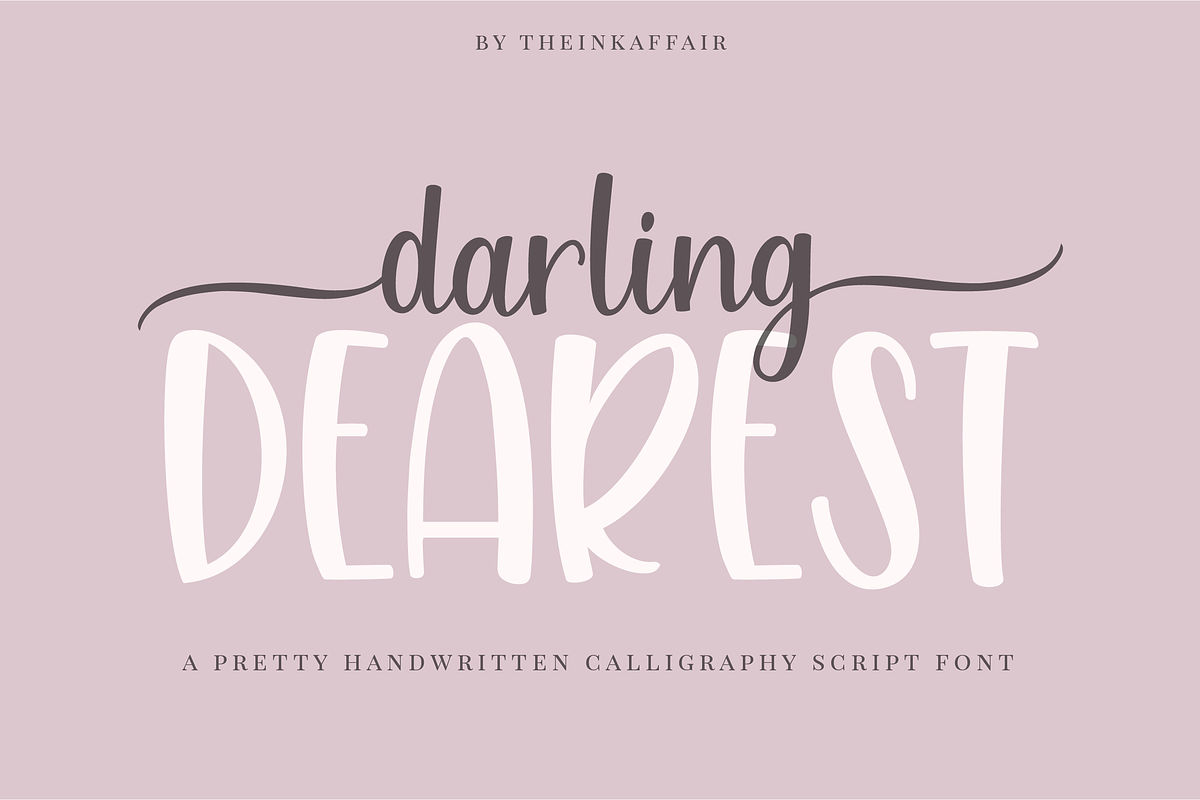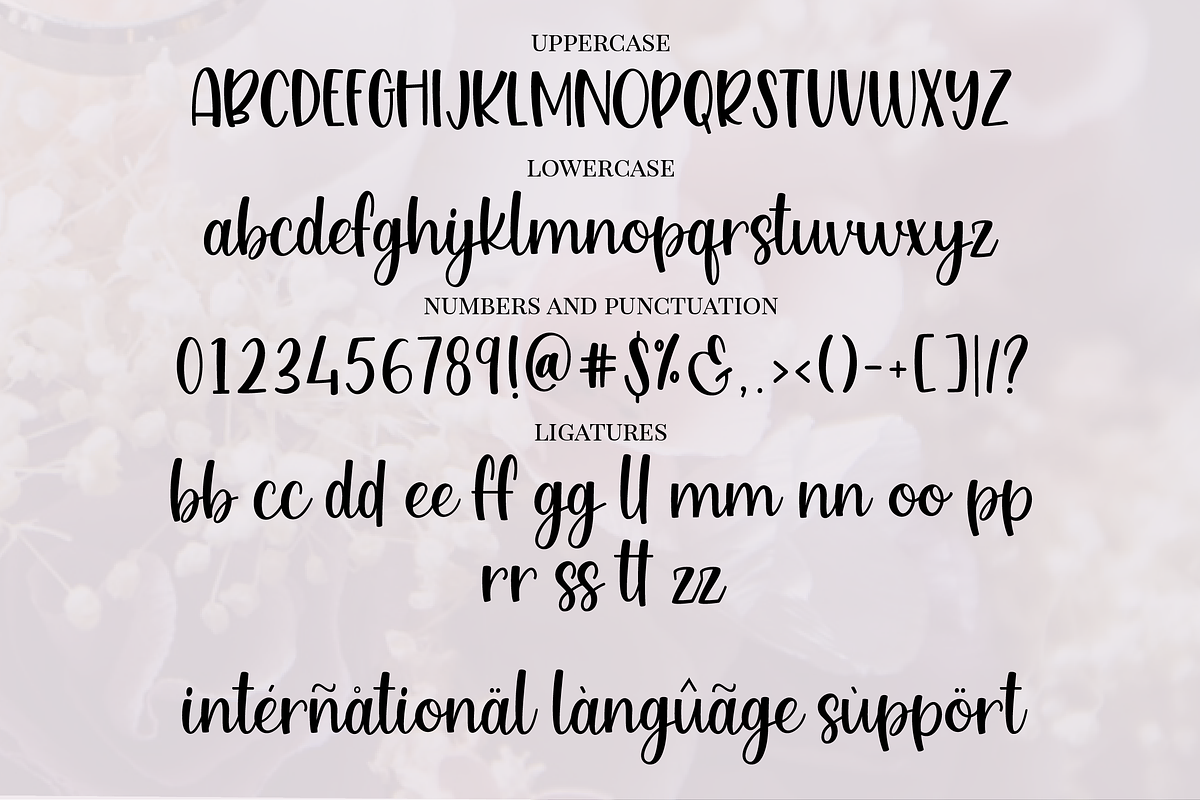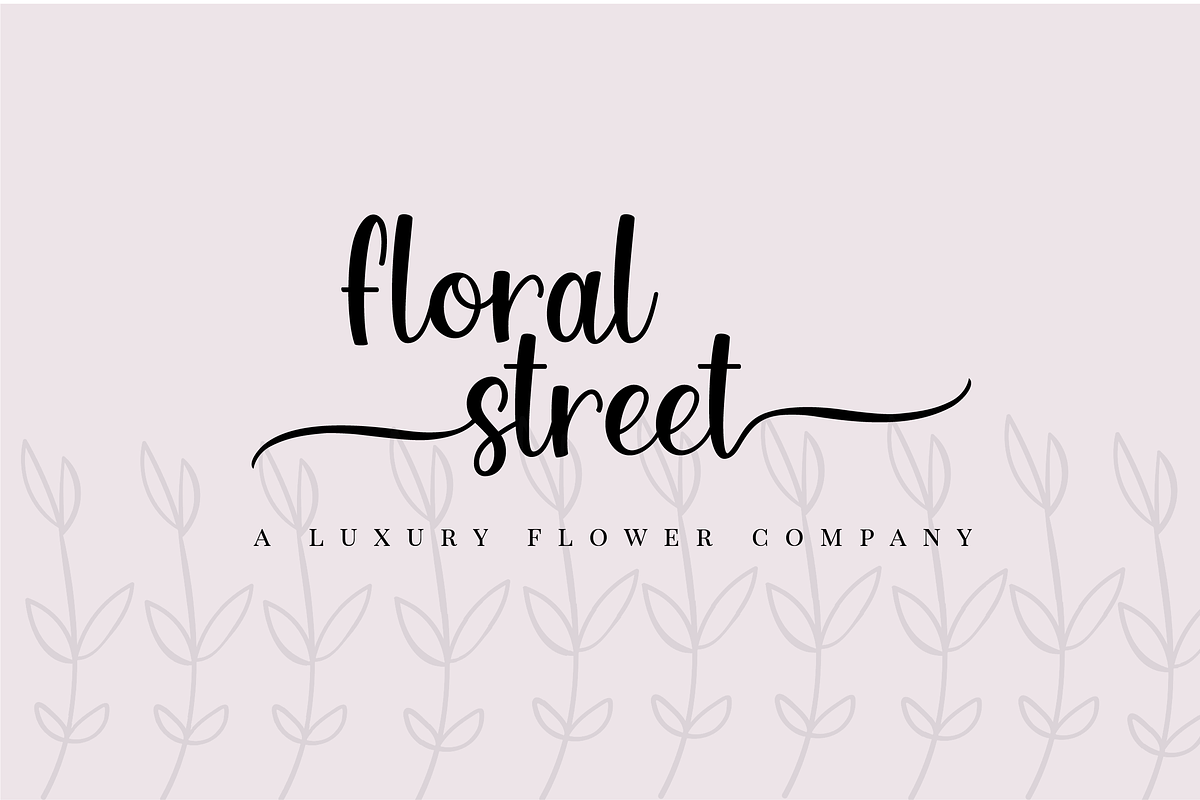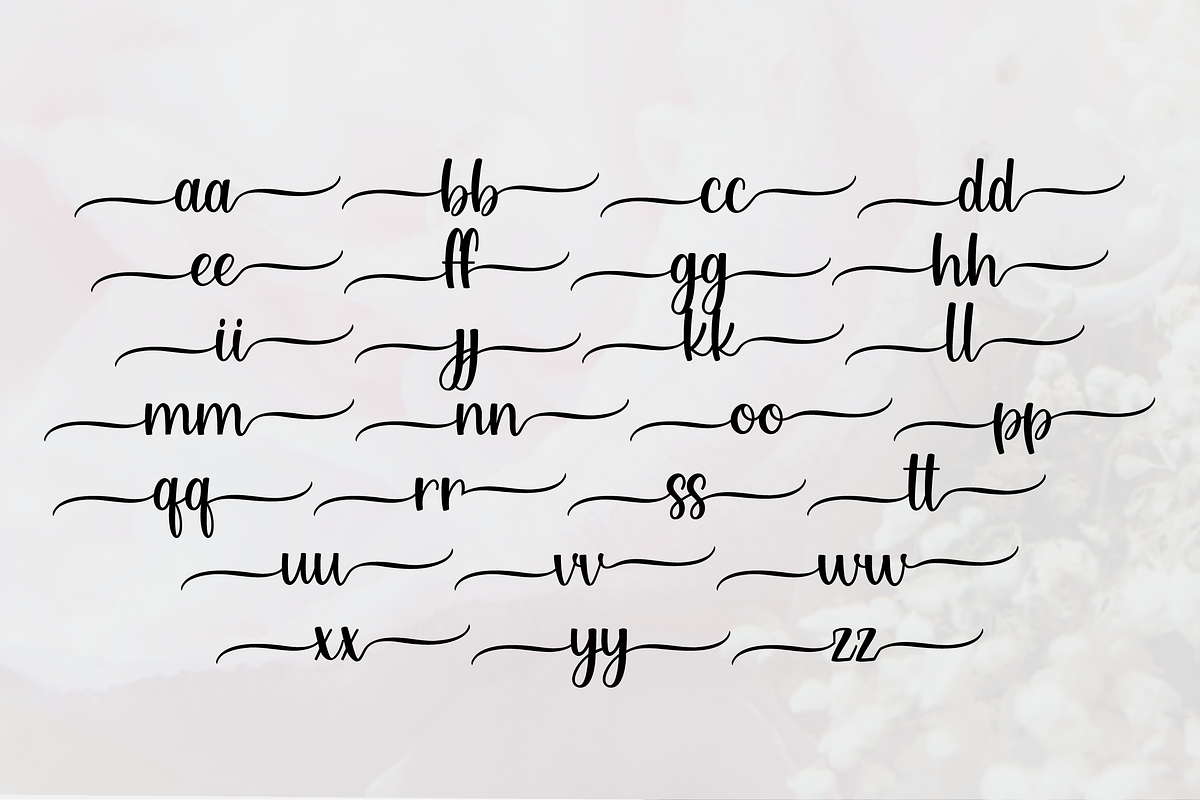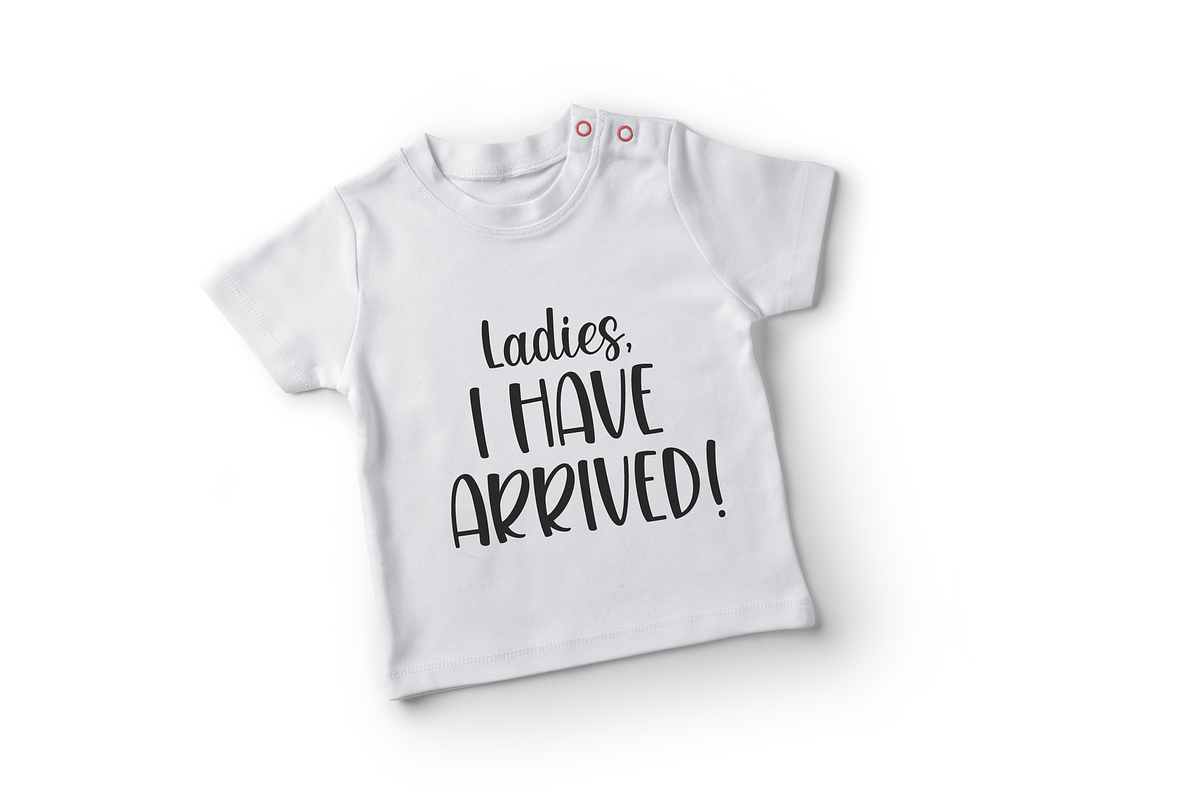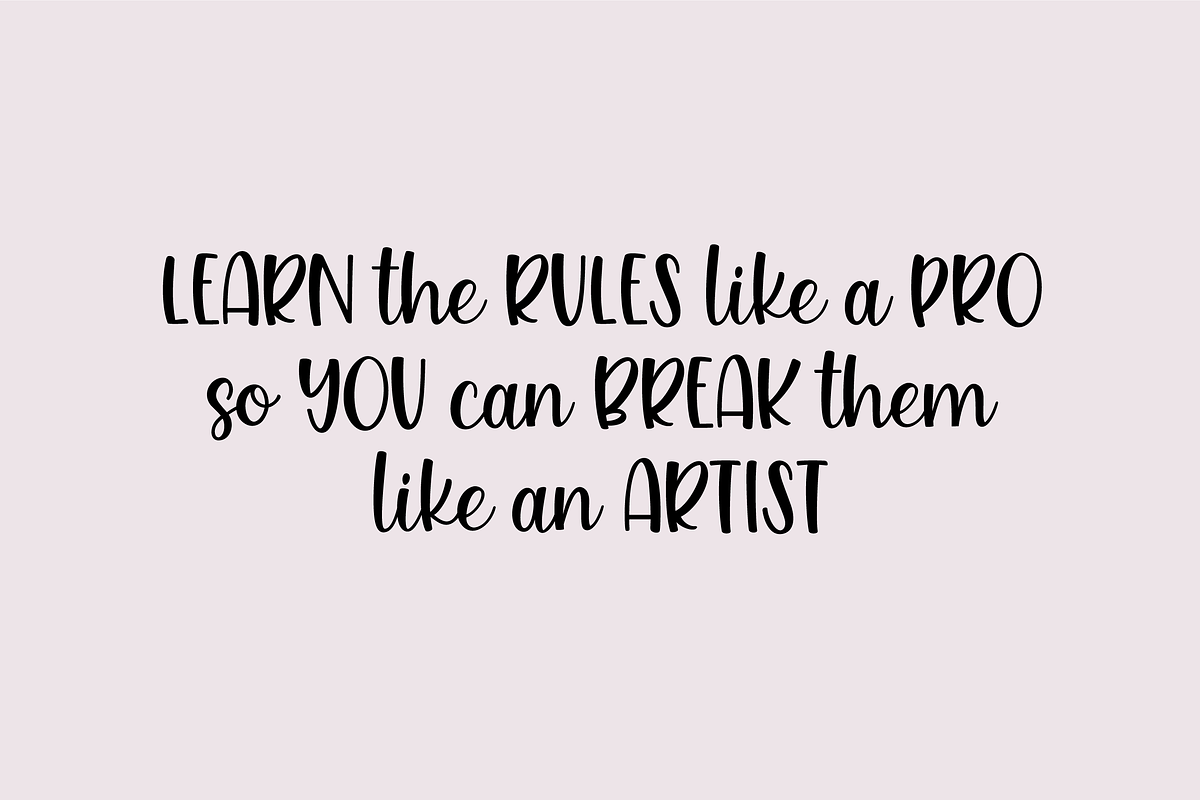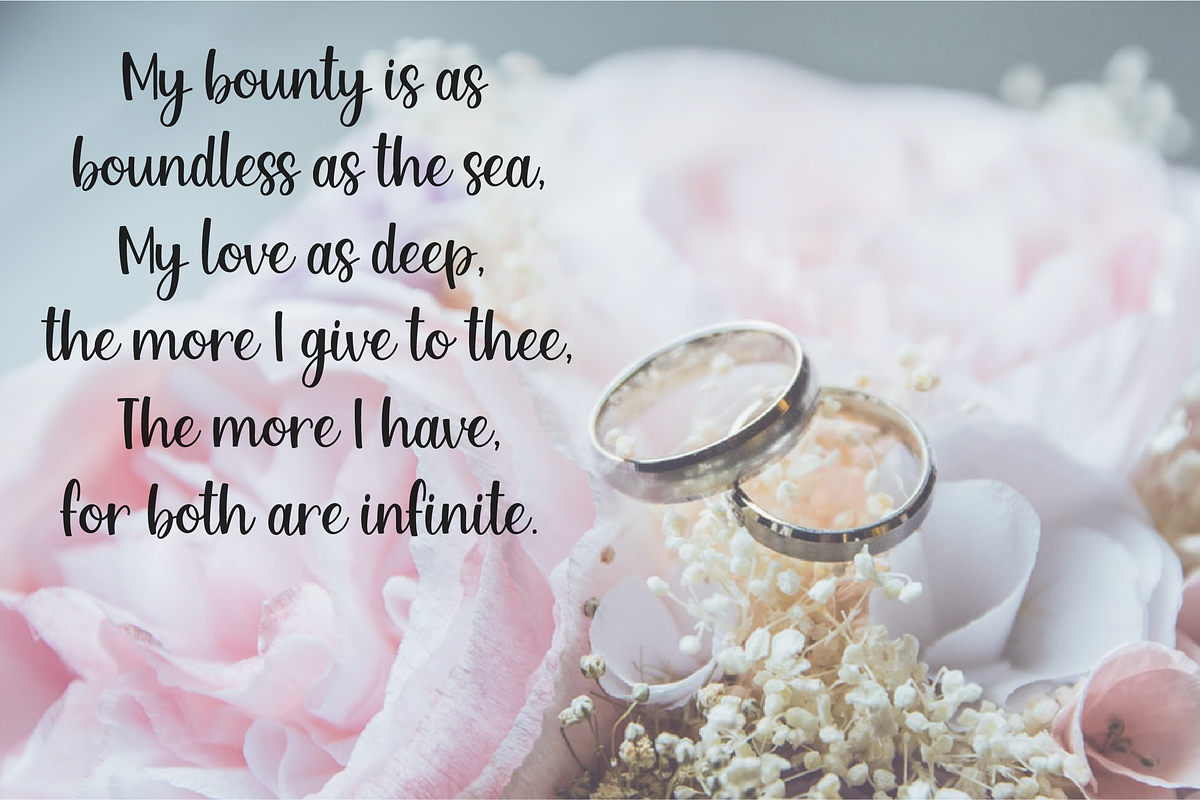
Darling Dearest Script Font
Introducing, Darling Dearest, a sweet calligraphy script font, perfect for all things design!
Darling dearest in both OTF and TTF format. File includes uppercase, lowercase, numbers, punctuations, as well as ligatures. Also includes a set of beginning and ending swashes each, coded in as alternates.
- File includes uppercase, lowercase, numbers, punctuations, as well as ligatures.
- Also includes a set of beginning and ending swashes each, coded in as alternates.